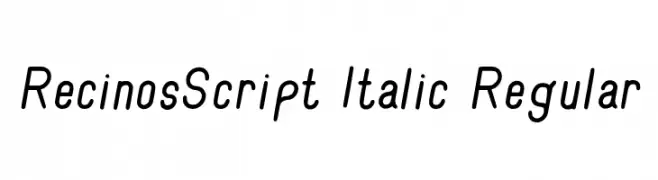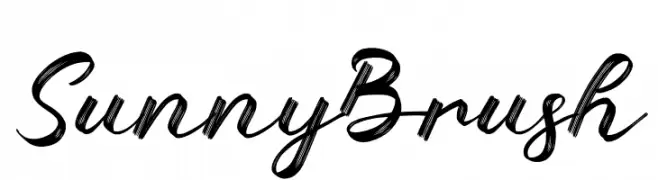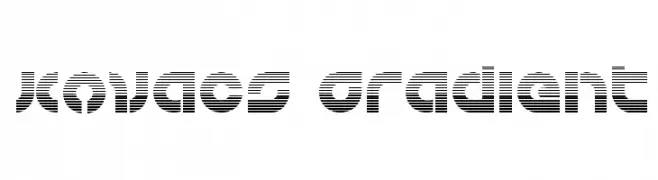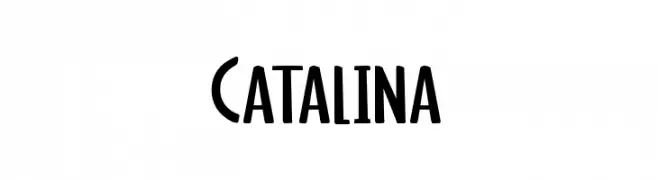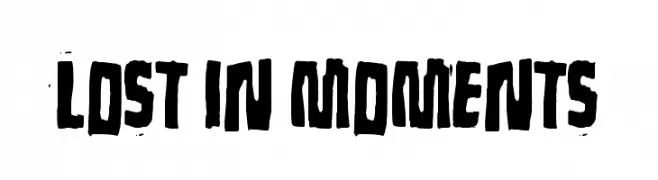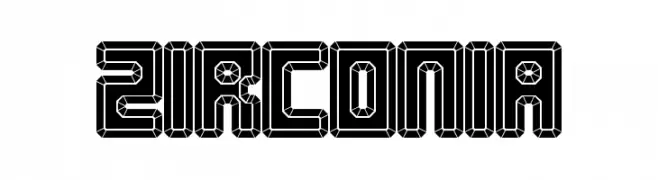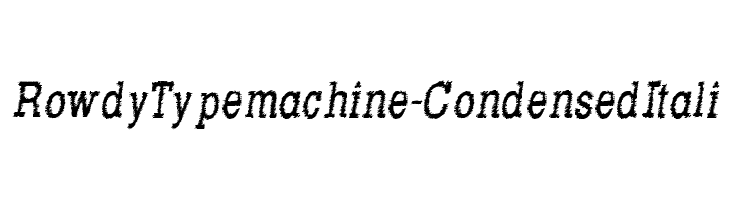
A smooth, flowing script font with an elegant, dynamic appearance.
A lively brush script font with bold, dynamic strokes and a hand-painted feel.
A bold, striped font with a futuristic and digital aesthetic.
A sophisticated script font with flowing, cursive letters and elegant curves.
A bold, playful font with a modern and quirky style.
A bold, rugged, hand-drawn font with a distressed texture.
A bold, geometric font with a futuristic and industrial style.
A modern, elegant script font with flowing, cursive characters.
A decorative dingbat set with mid-century modern and atomic age motifs.
A playful, bold font with a bubble-like outline and cartoonish style.